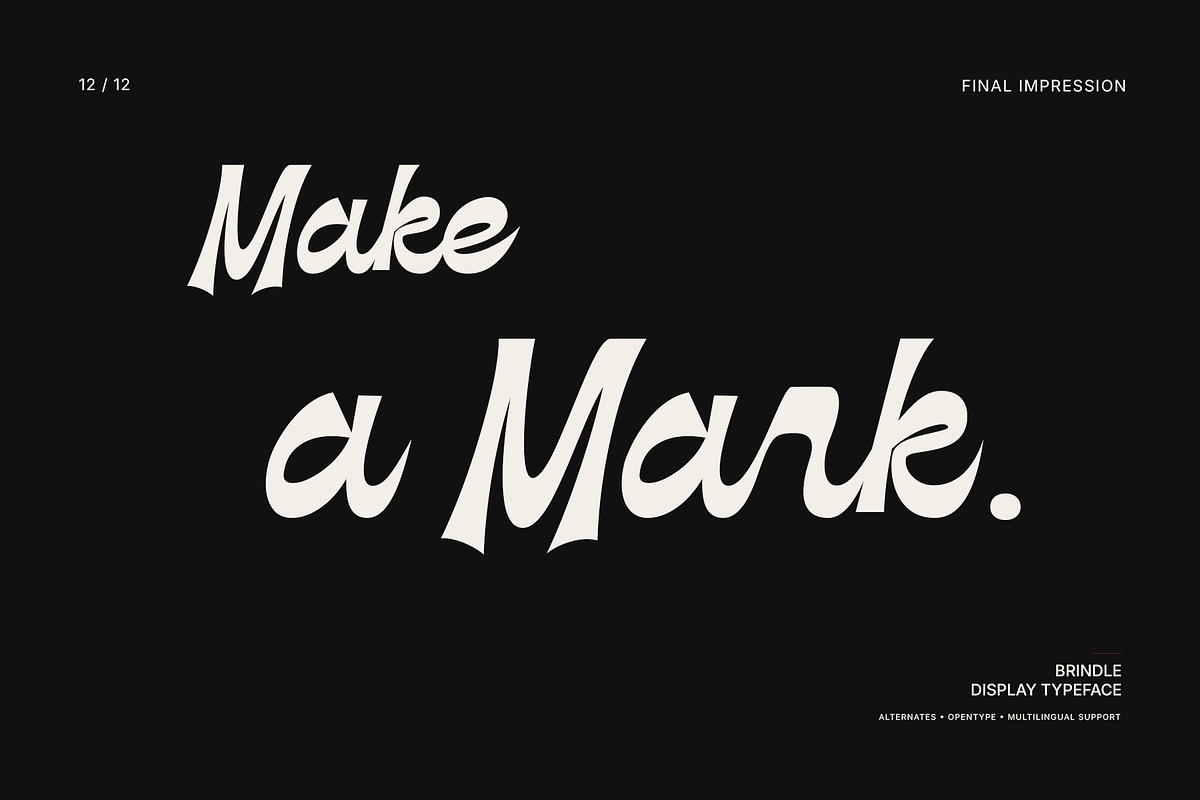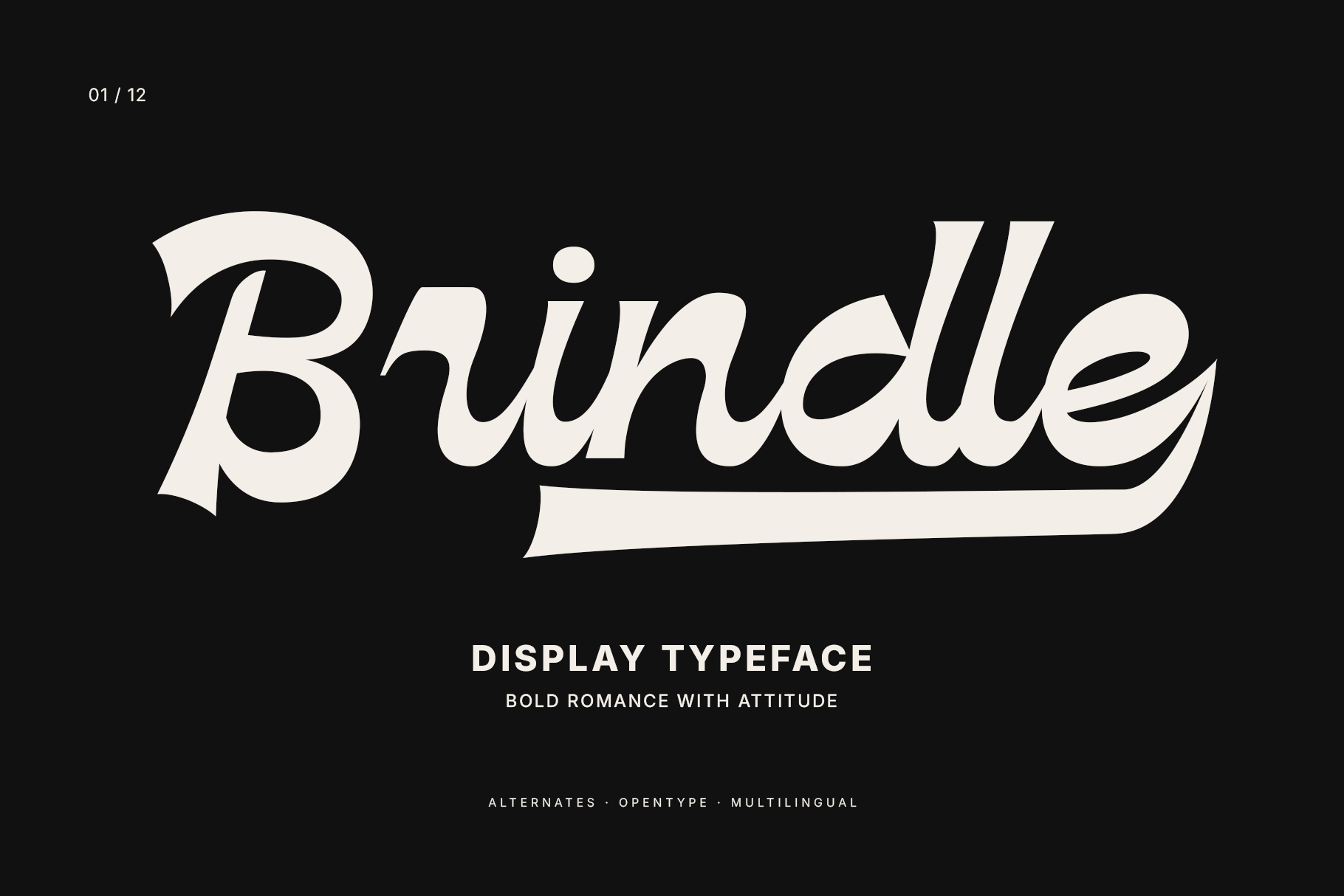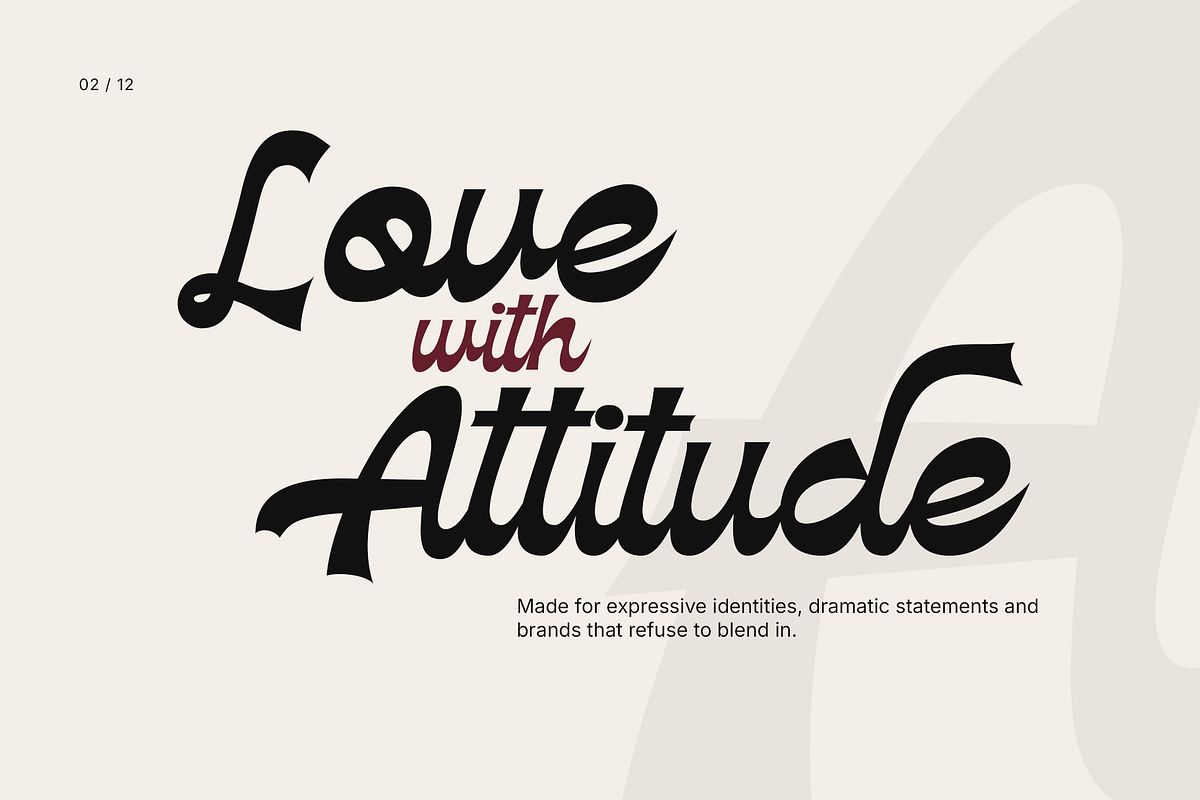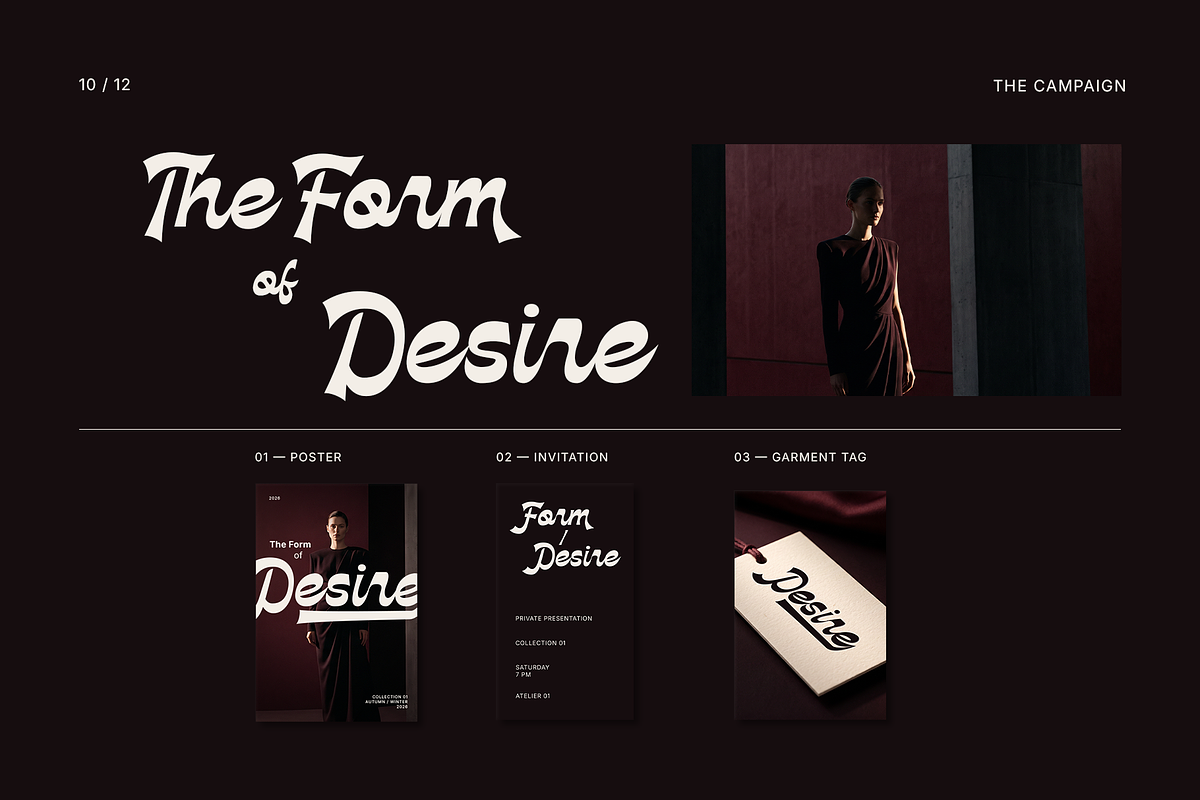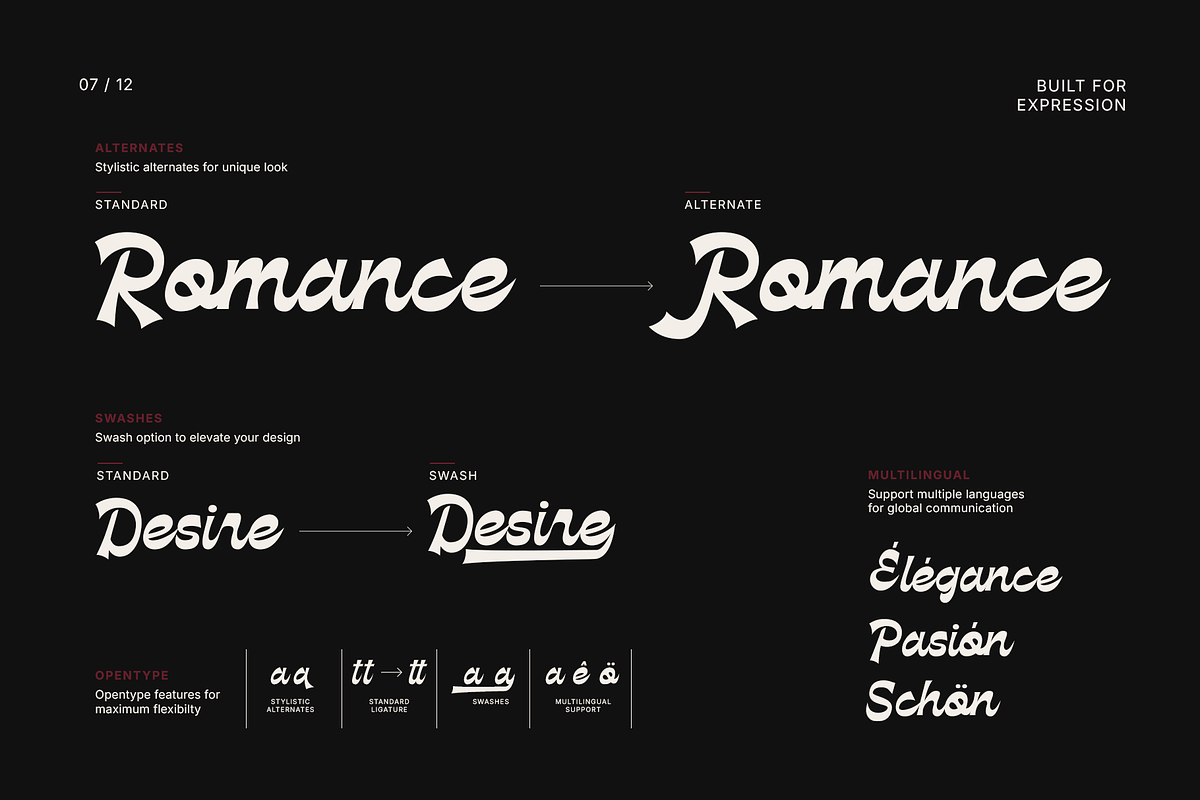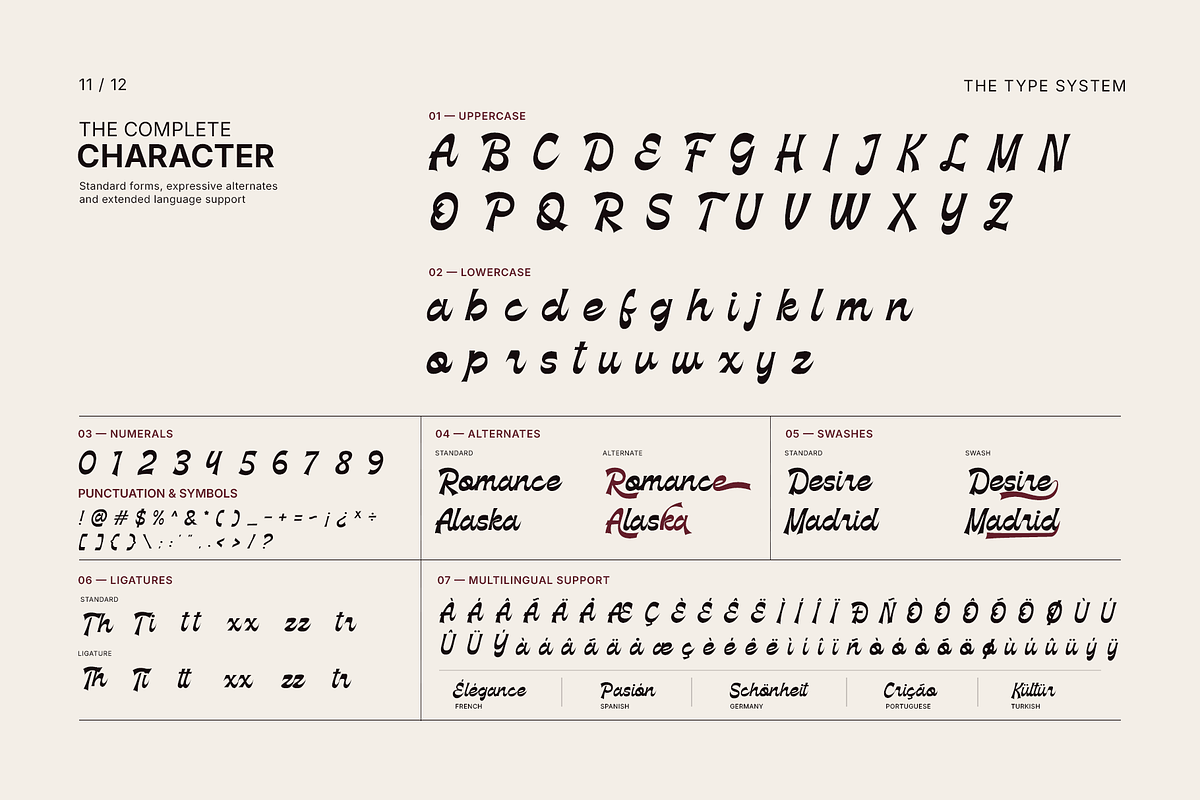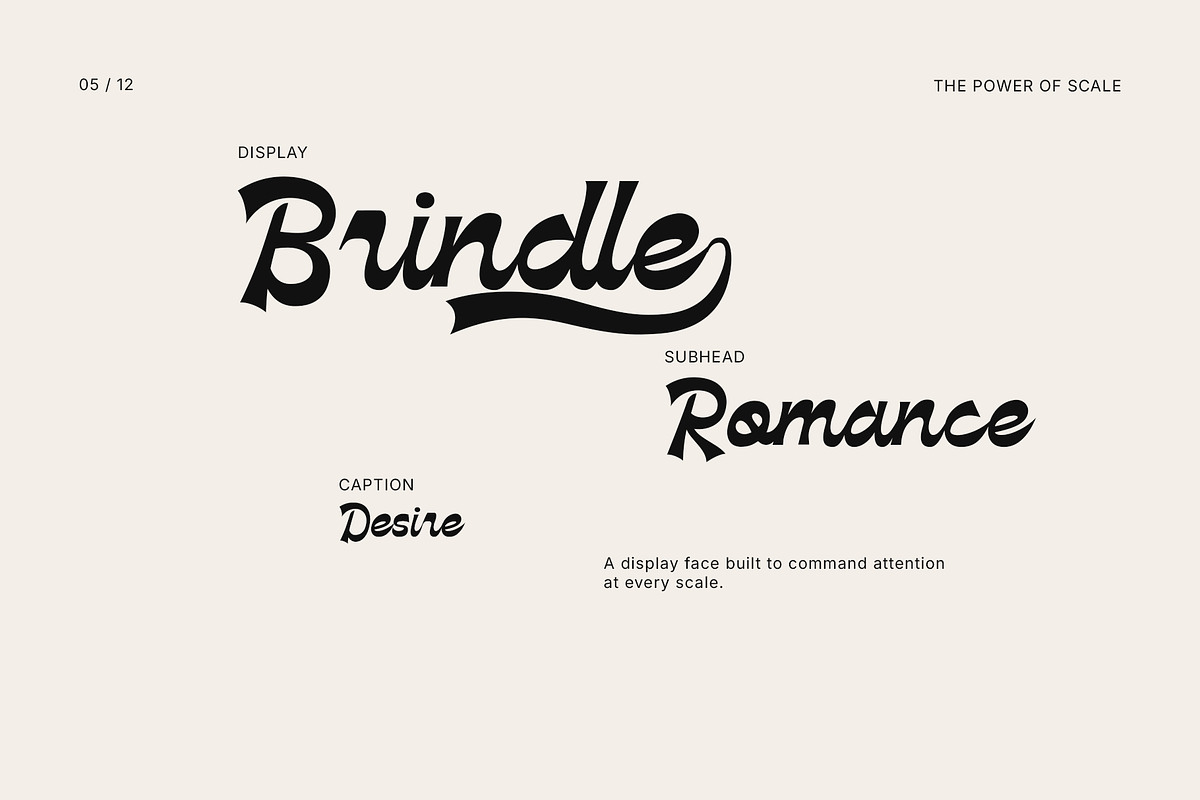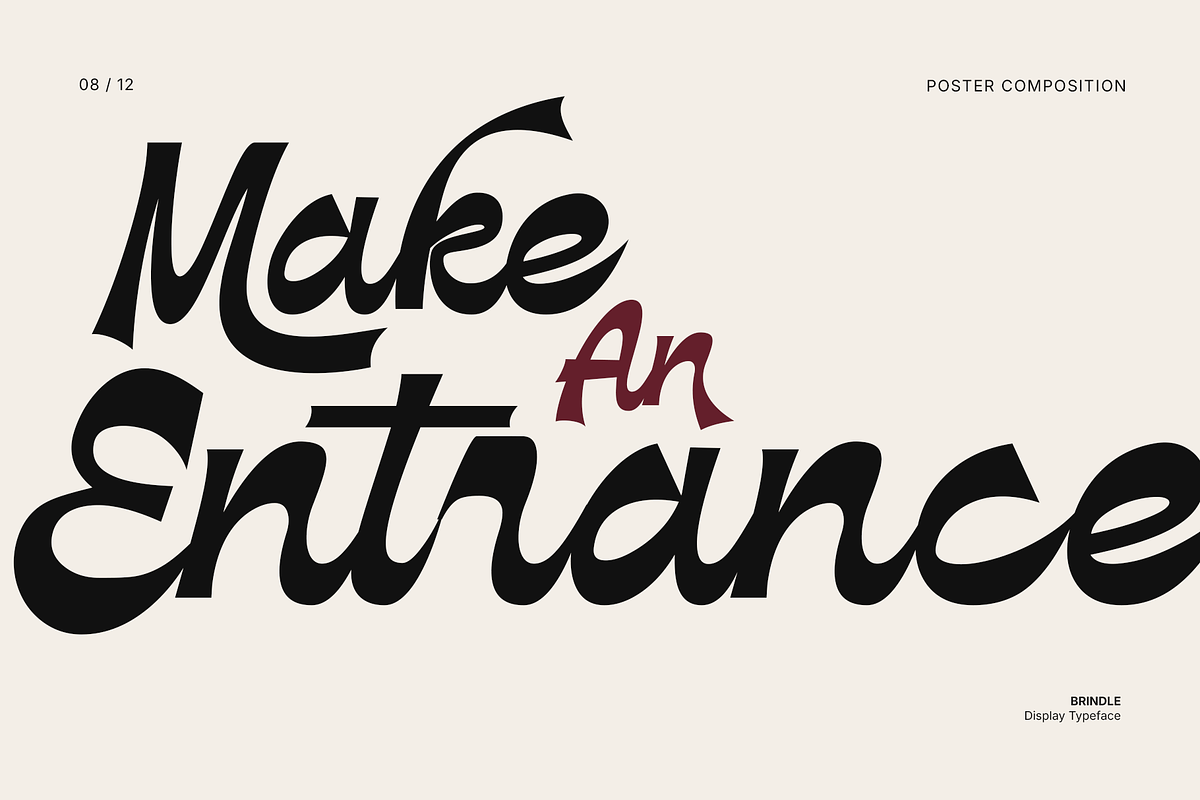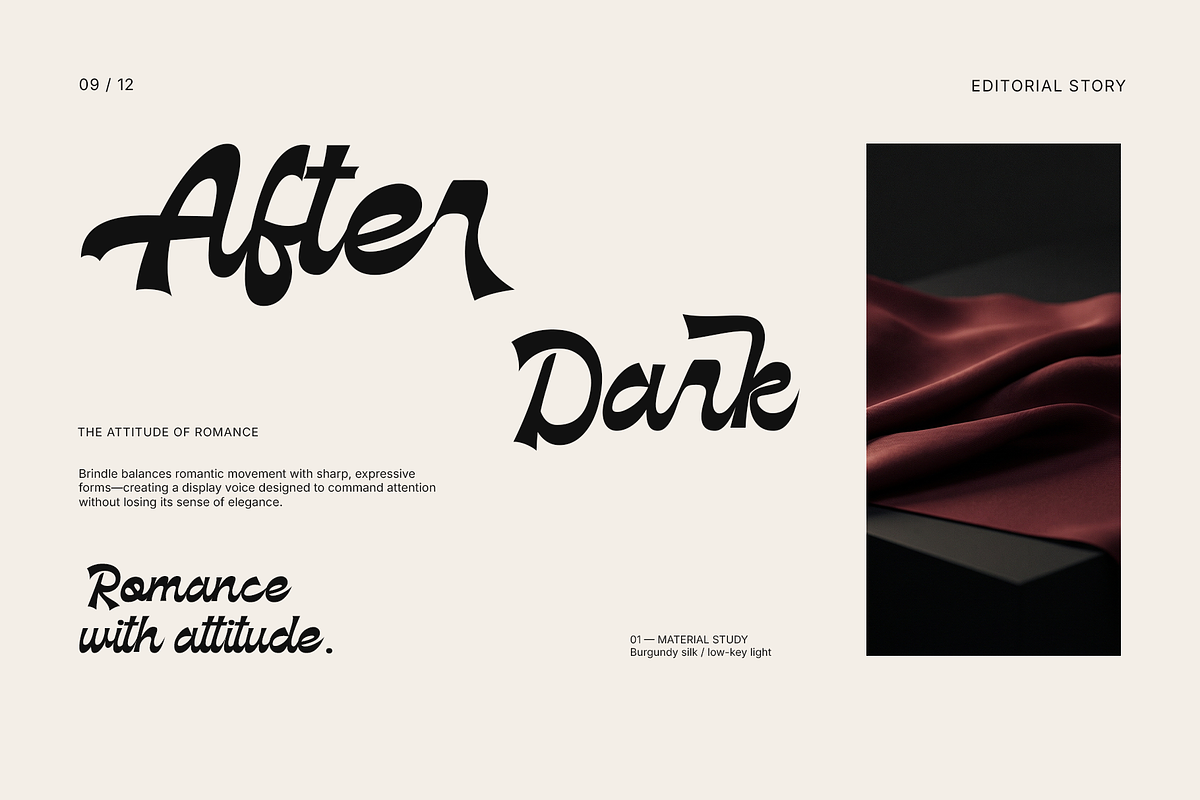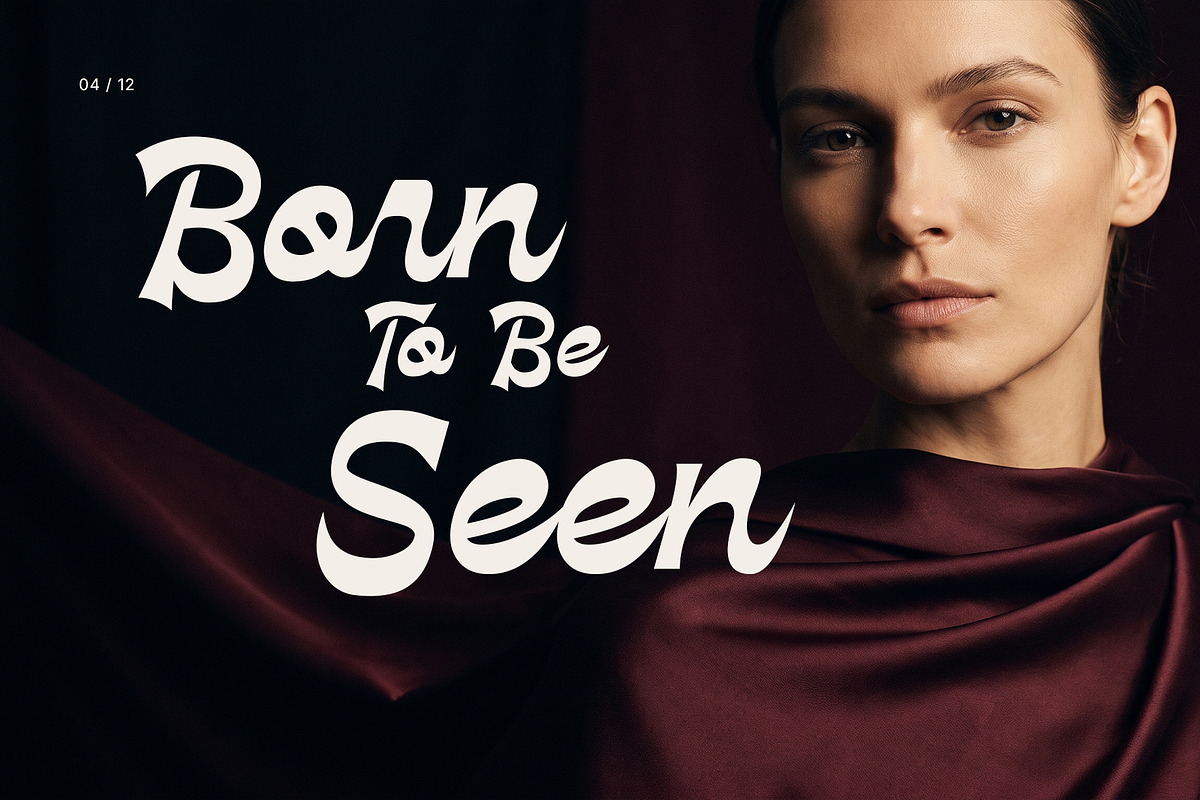
Brindle — Bold Script Display Font
Brindle is a bold romantic script display font for fashion branding, editorial design, posters, packaging, invitations, logos, and expressive visual identities.
Designed with distinctive curves, sharp terminals, and dramatic letterforms, Brindle brings a confident romantic character to headlines, brand names, campaigns, and other high-impact typography.
Brindle combines a refined standard style with expressive stylistic alternates and sweeping swashes, allowing designers to create anything from elegant wordmarks to bold editorial compositions.
• Stylistic Alternates
• Swashes
• OpenType Features
• Ligatures
• Multilingual Character Support
• Uppercase & Lowercase
• Numerals
• Punctuation & Symbols
IDEAL FOR
• Fashion Branding
• Fashion Campaigns
• Logo & Identity Design
• Editorial Design
• Editorial Typography
• Posters & Headlines
• Packaging Design
• Invitations
• Beauty & Lifestyle Branding
• Social Media Graphics
• Creative Advertising
Brindle is designed for brands and designers who want expressive typography with a strong visual presence and a distinctive romantic attitude.